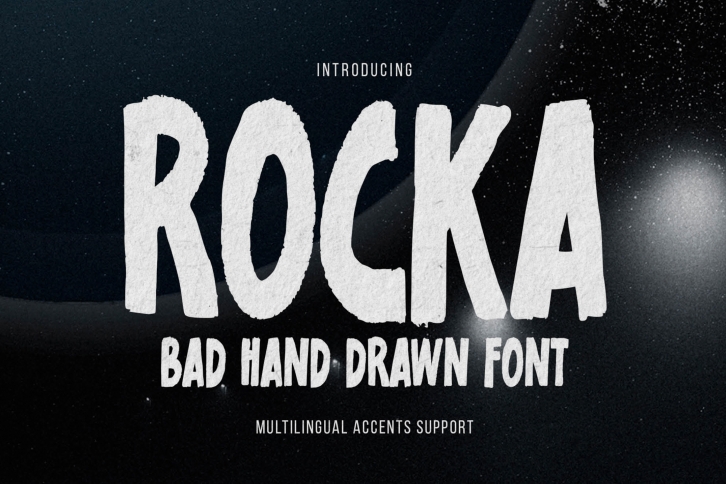
Rocka is a cool and brushed looking display font. No matter the topic, this font will be an incredible asset to your fonts’ library, as it has the potential to elevate any creation.